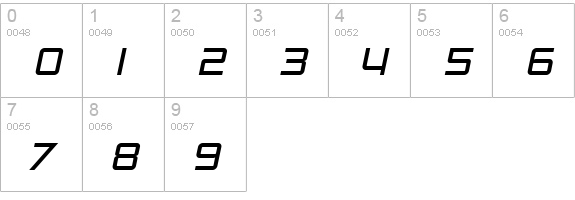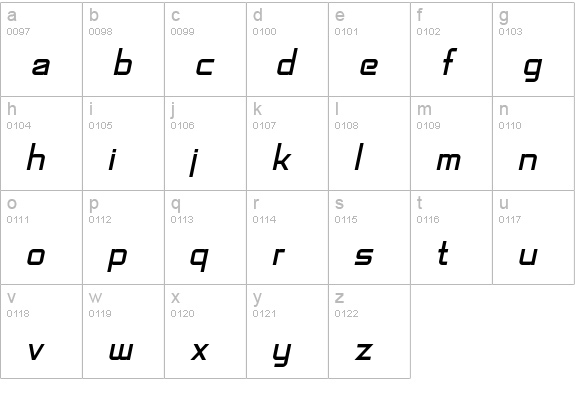
SF Chaerilidae Oblique Font Details
SF Chaerilidae Oblique is a distinctive, italic variant in the SF typeface family \xE2\x80\x94 well suited to design and typography projects.
The SF Chaerilidae Oblique font is a stunning addition to any design project, bringing a touch of elegance and sophistication. Its sleek and slanted appearance adds a unique twist to traditional letterforms, making it perfect for both professional and creative endeavors. This font boasts a wide range of characters, allowing for versatility in expressing your ideas. Whether you're designing a logo, creating a poster, or crafting a stunning website, SF Chaerilidae Oblique will effortlessly elevate your work to new heights. But what sets this font apart is that it is not only visually striking, but also freely available to download. FontsMarket.com offers this gem to you, completely free of charge. Now you can enjoy the benefits of a high-quality font without breaking the bank. With SF Chaerilidae Oblique, your designs will make a lasting impression. Its clean lines and subtle curves exude a sense of modernity and professionalism, making it a must-have for any design enthusiast. Whether you're a graphic designer, a marketer, or a student, this font will become an indispensable tool in your creative arsenal. Don't miss out on the opportunity to enhance your designs with SF Chaerilidae Oblique. Download it for free at FontsMarket.com and unlock endless possibilities for your projects.